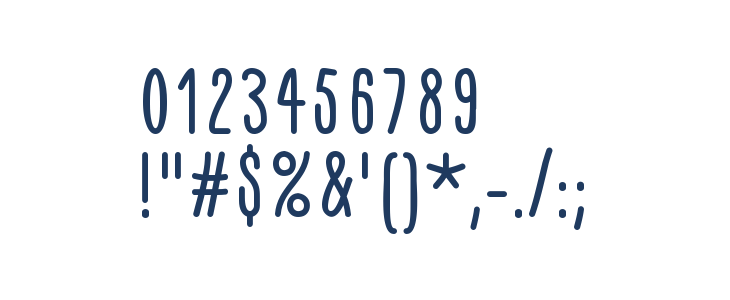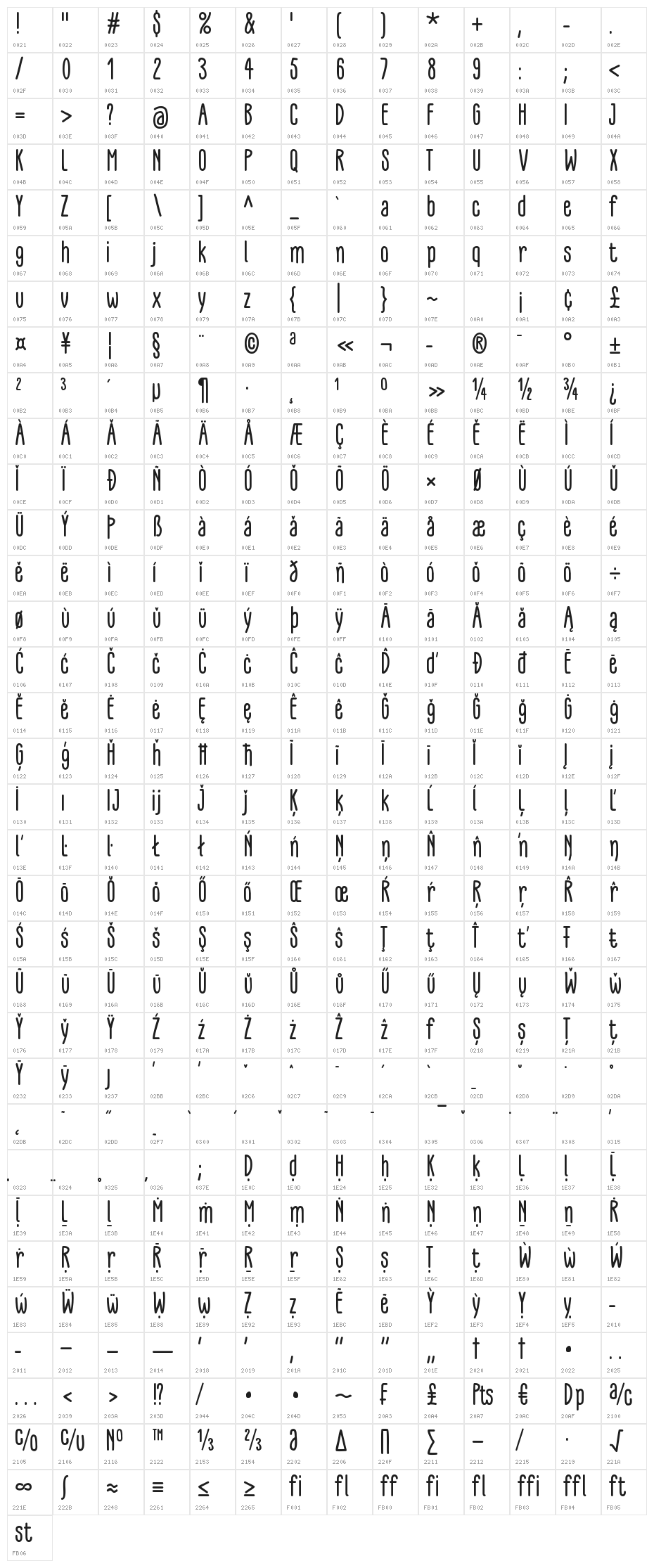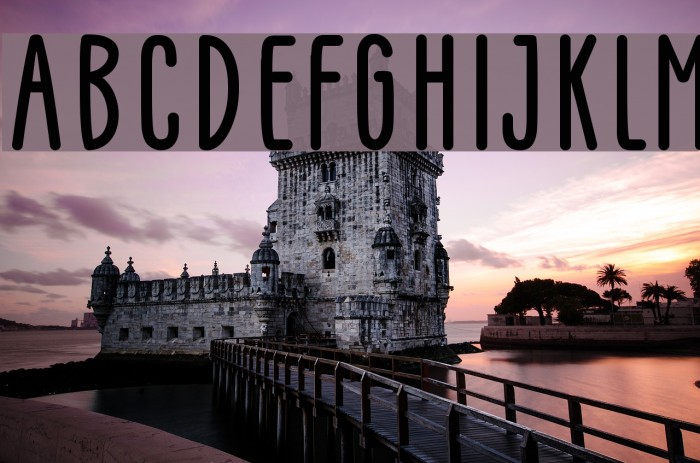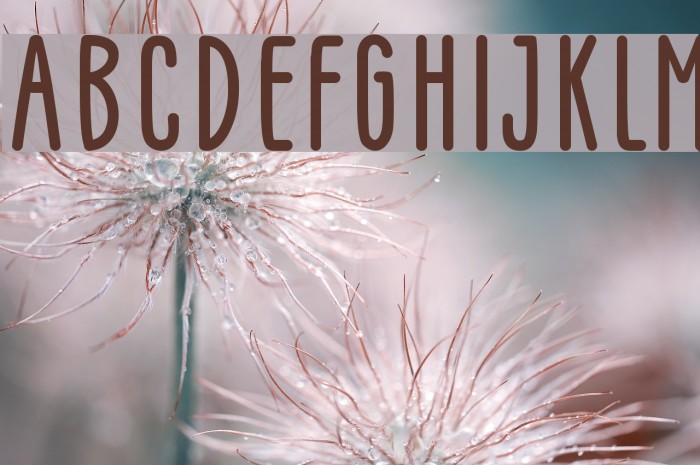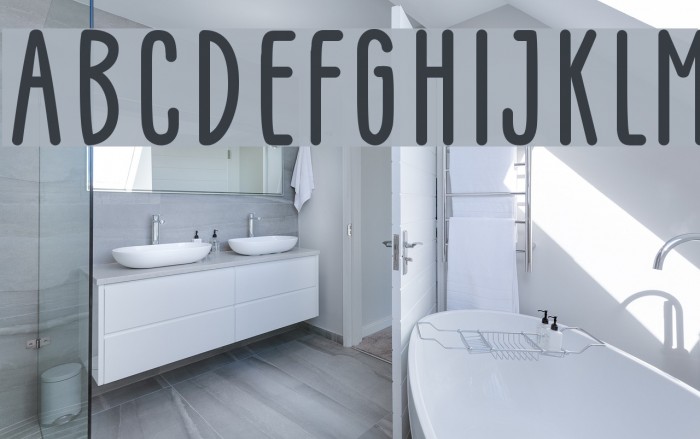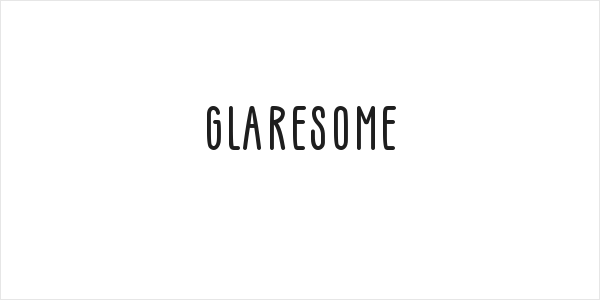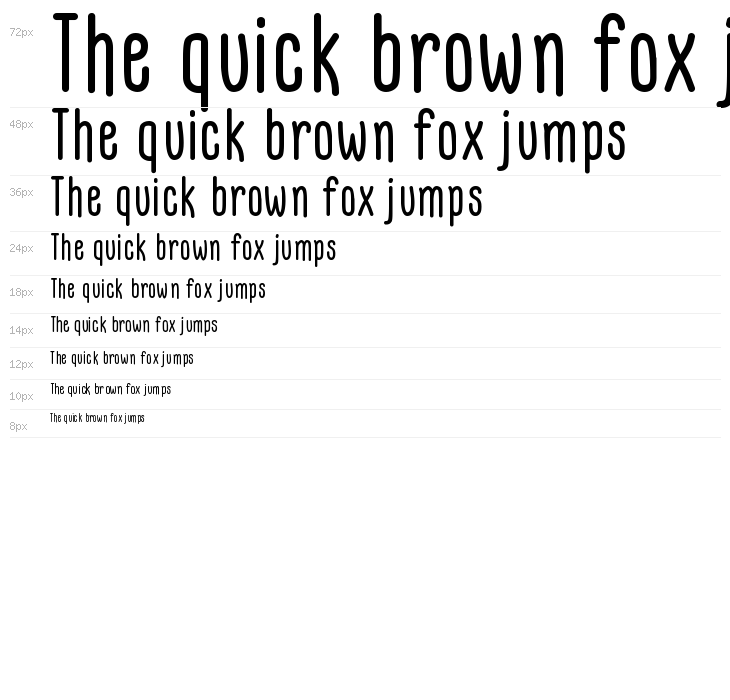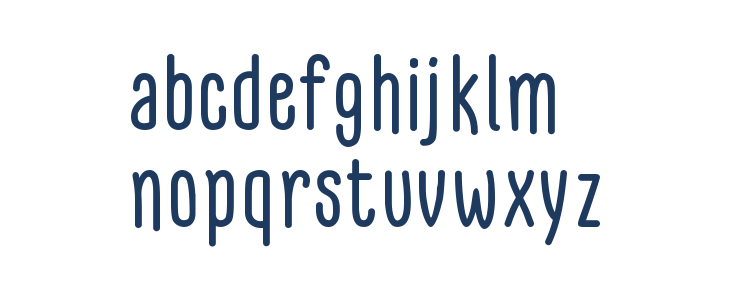
GLARESOME Font
GLARESOME Description
This font features a playful and modern design with tall, narrow characters that have a slightly rounded appearance. The strokes are consistent in width, giving it a clean and uniform look. The uppercase letters are slightly taller than the lowercase, maintaining a cohesive style throughout. The numerals are clear and easy to read, matching the overall aesthetic of the alphabet. Special characters are included, maintaining the same playful and approachable style. This font is well-suited for projects that require a friendly and contemporary touch.
| Proposed Projects | Ideal for children's books, playful branding, casual invitations, and modern web design. |